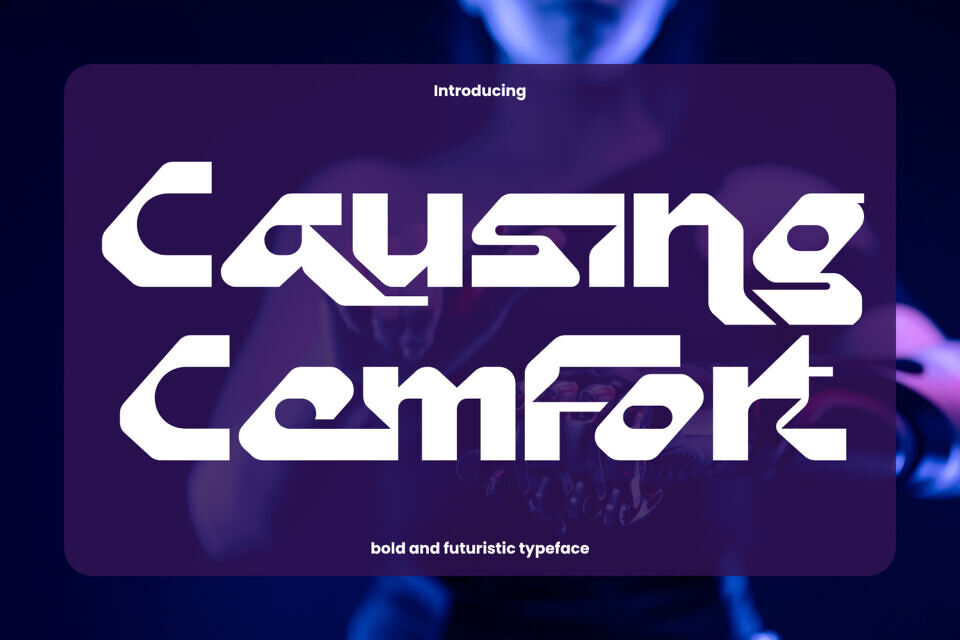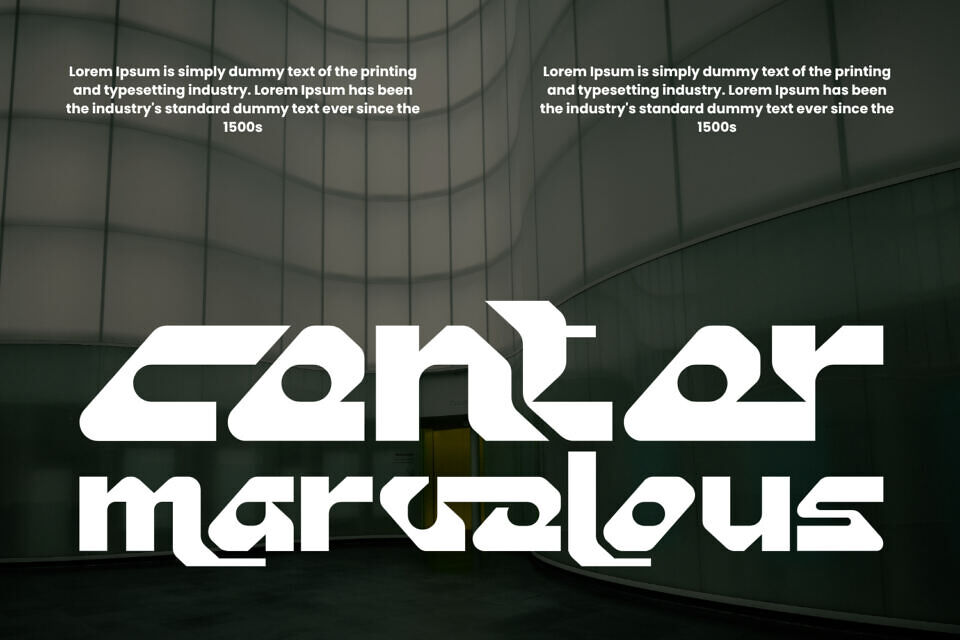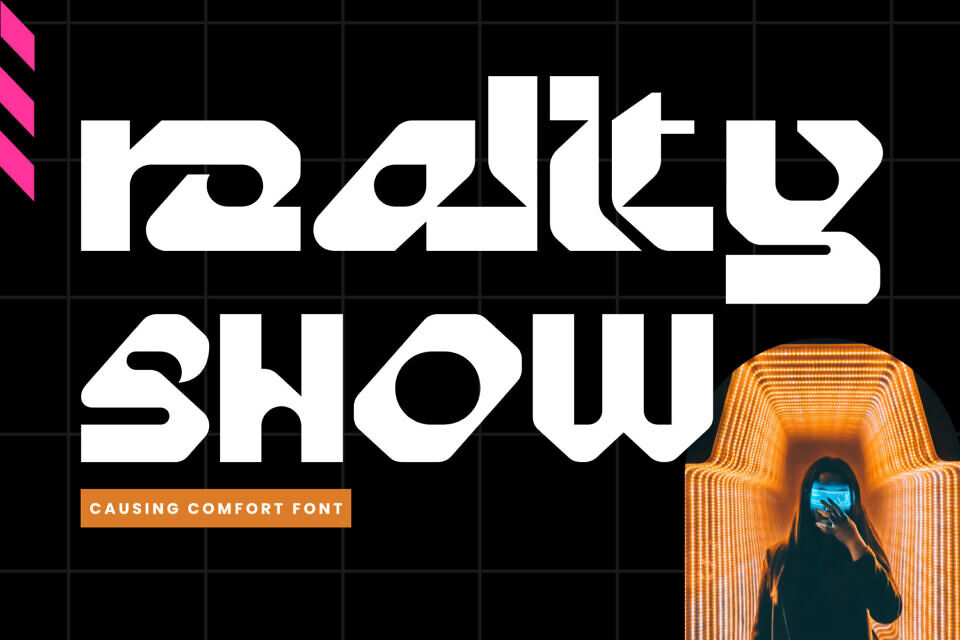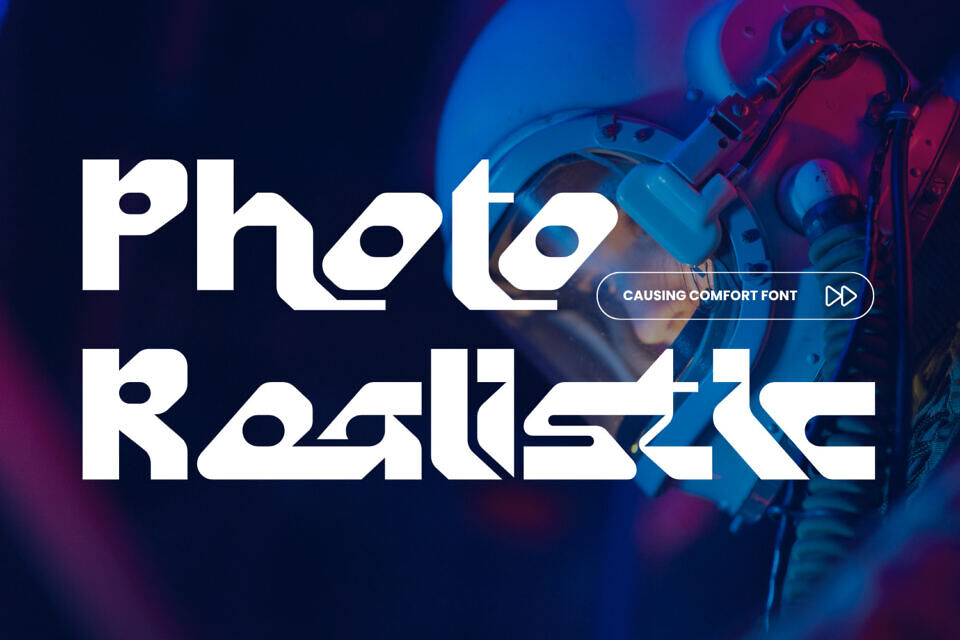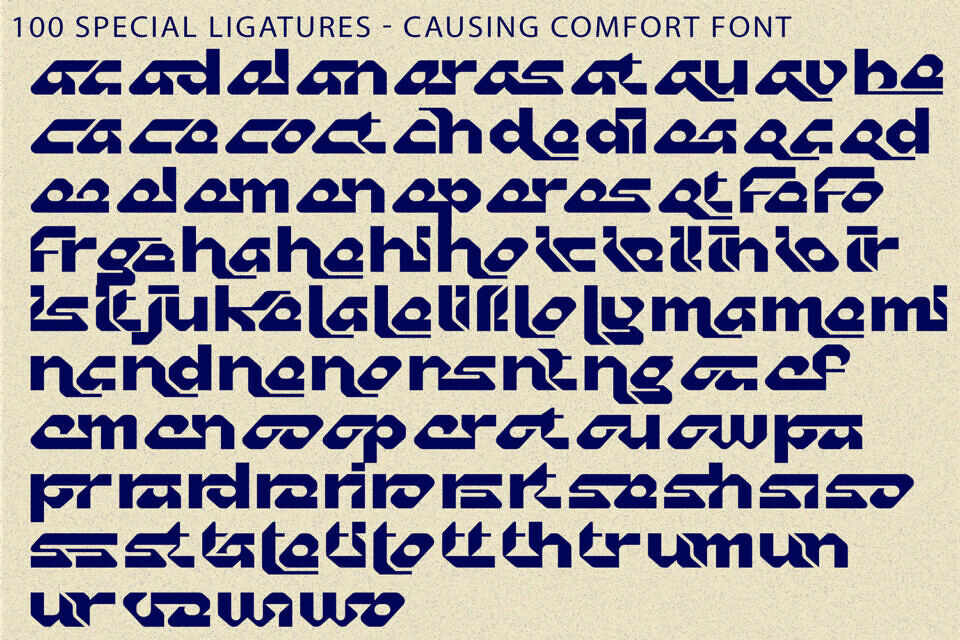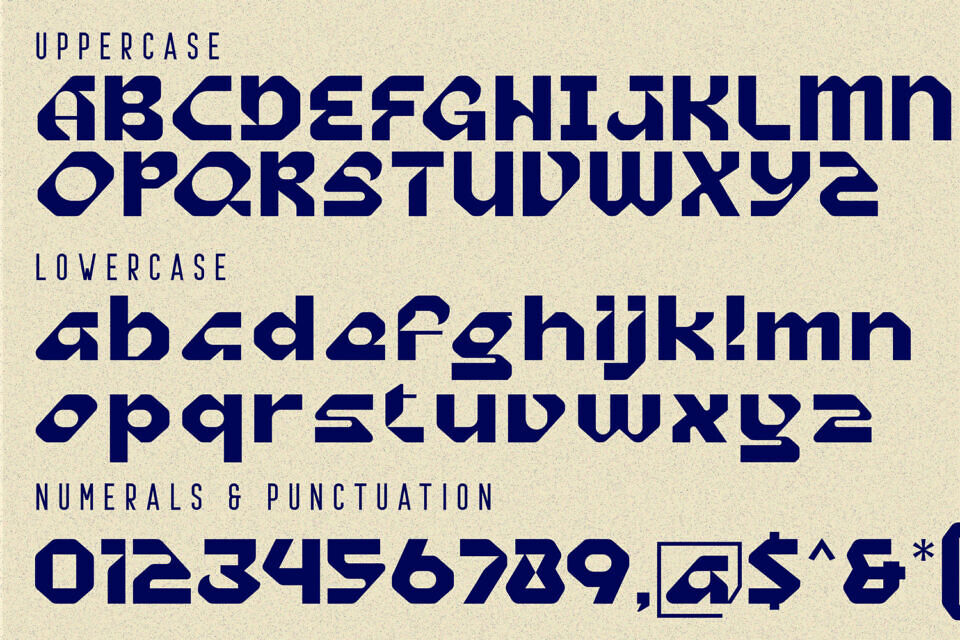
Causing Comfort is a futuristic rounded sans-serif display font designed with clean geometry, smooth curves, and modular letterforms. Its bold structure and refined cut details create a modern high-tech look while keeping a soft and approachable visual rhythm.
Perfect for technology branding, gaming titles, sci-fi posters, digital products, startup logos, UI design, and futuristic visual identities, Causing Comfort delivers clarity, innovation, and strong visual impact.